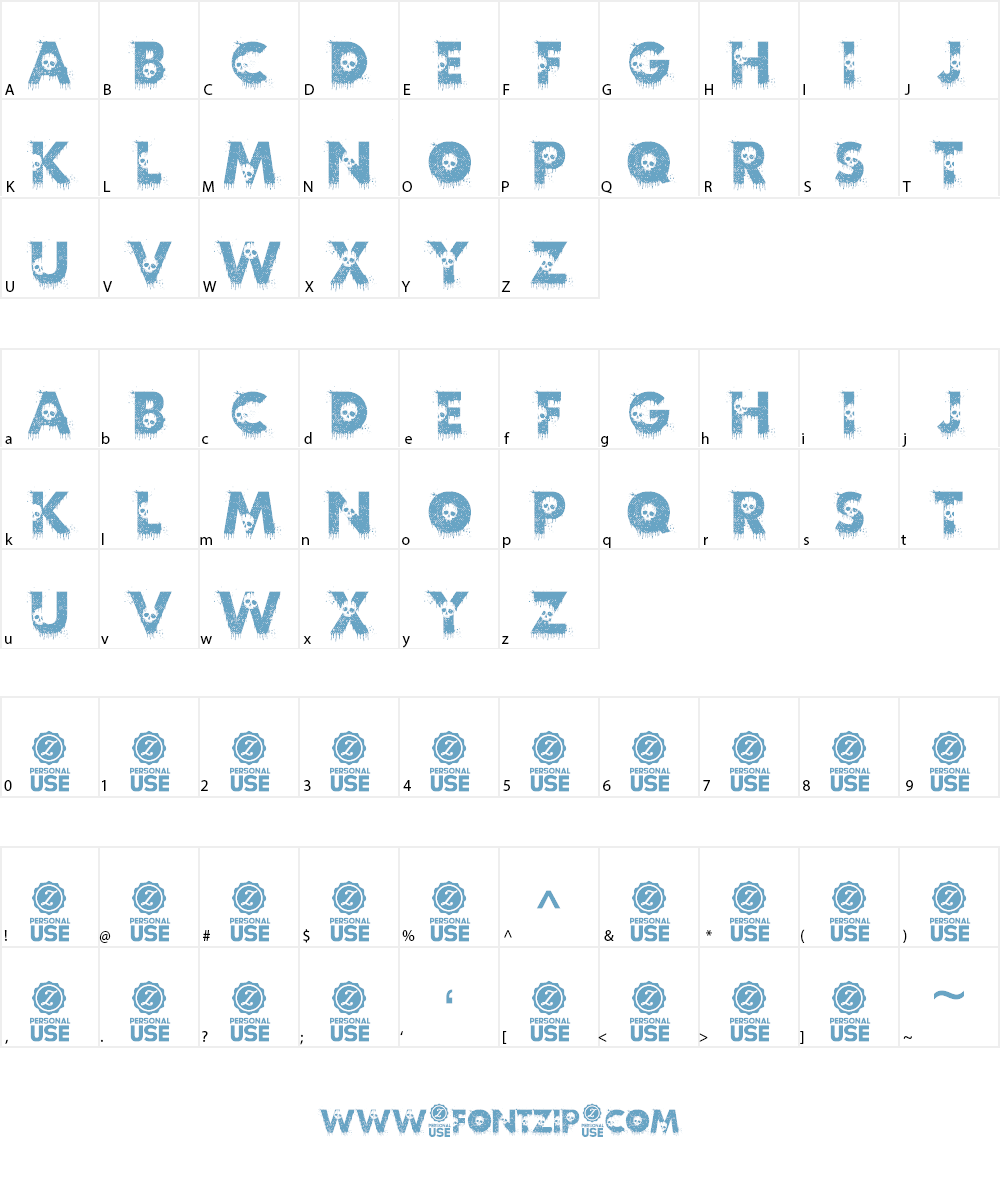
(ING)Zilap Horror: This source is based on halloween terror and perfect for use flyer, posters on halloween, october, rock concerts, metal, heavymetal or concepts of horror, movies, partyhalloween among others.
(ESP) Zilap Horror: Esta fuente esta basada en el terror y en halloween, perfecta para uso de flyer, carteles sobre halloween, octubre, conciertos de rock, metal, heavymetal o conceptos sobre el horror, peliculas, partyhalloween entre otros.